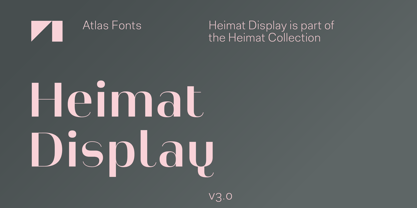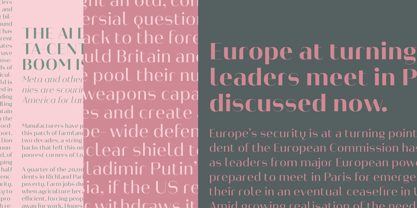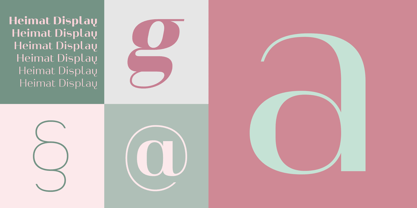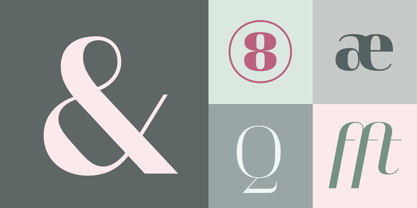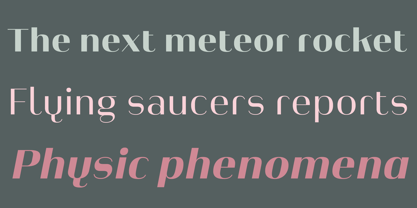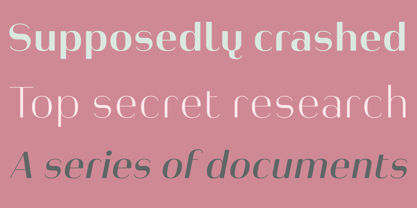
Heimat™ Display
por Atlas Fonts
La familia tipográfica Heimat Display fue diseñada por Christoph Dunst y publicada por Atlas Fonts. Heimat Display contiene 72 estilos y opciones de paquete familiar.
Heimat Display is the high contrast sans serif typeface family within the Heimat Collection, also containing Heimat Didone, Heimat Sans, Heimat Mono and Heimat Stencil. Heimat Display is a typeface family designed for contemporary typography, especially for use in headlines and on posters, but also for reading purposes. It combines an idiosyncratic appearance with the feeling of a grid-based letter construction of the late 20s. Since the design might be too extreme for some applications, Heimat Display’s character set provides different alphabets, the regular one plus alternate designs that comes across as less suspenseful. Heimat Display [873 glyphs] comes in 72 styles and contains extra sets of alternate glyphs, many ligatures, lining figures [proportionally spaced and monospaced], hanging figures [proportionally spaced and monospaced], positive and negative circled figures for upper and lower case, superior and inferior, fractions, extensive language support and many more OpenType features.